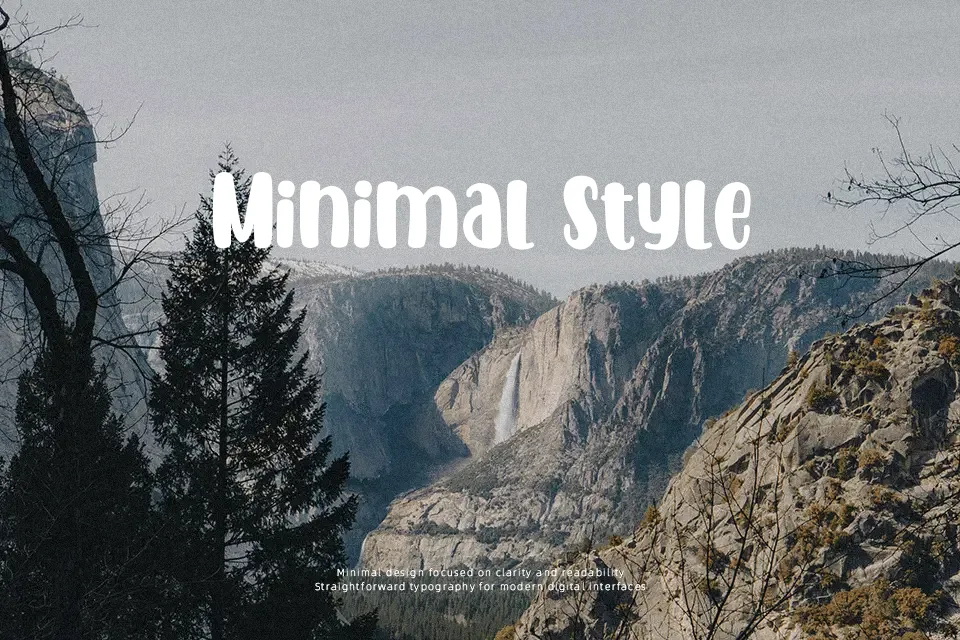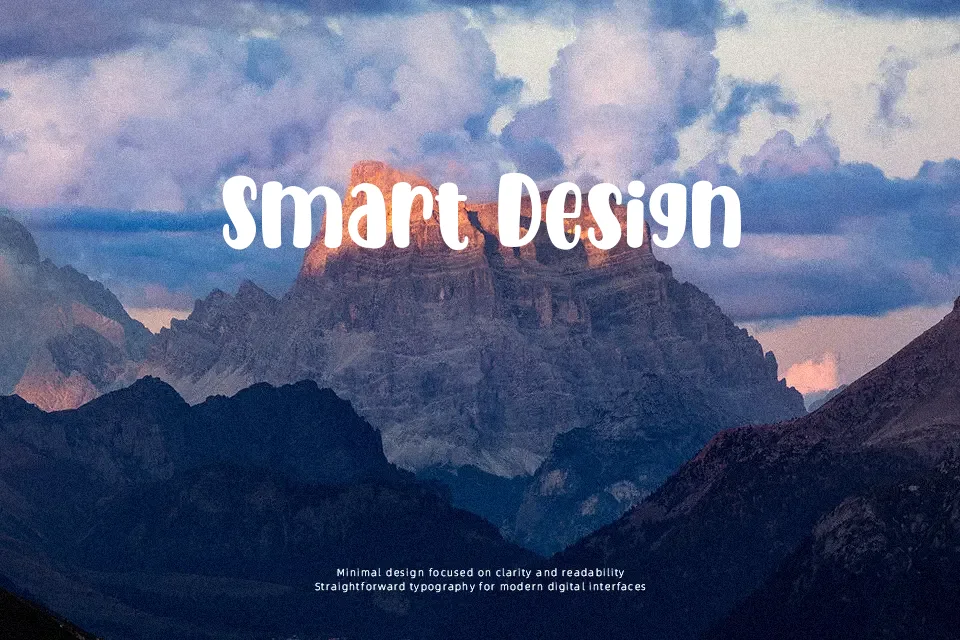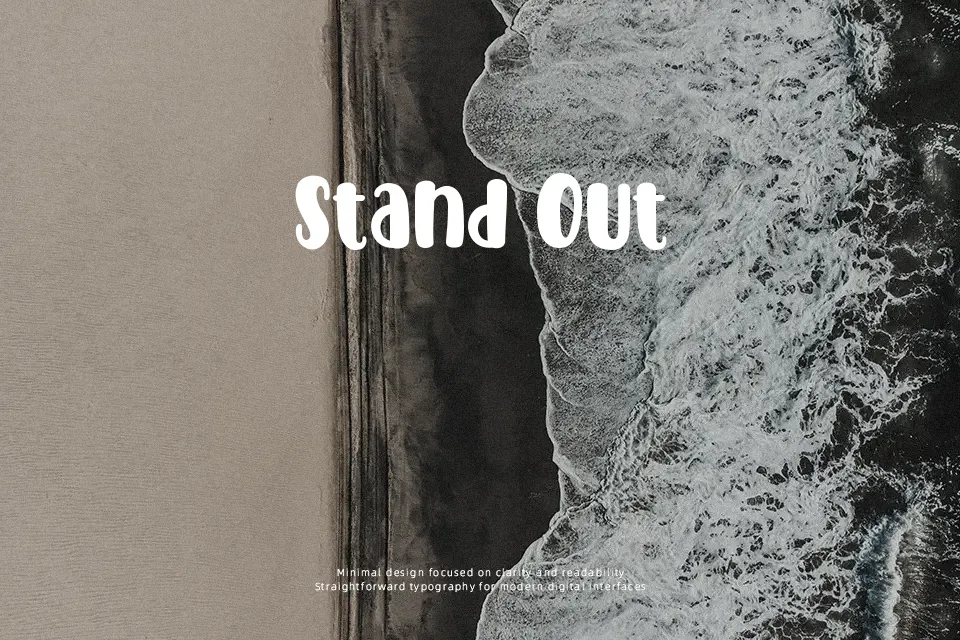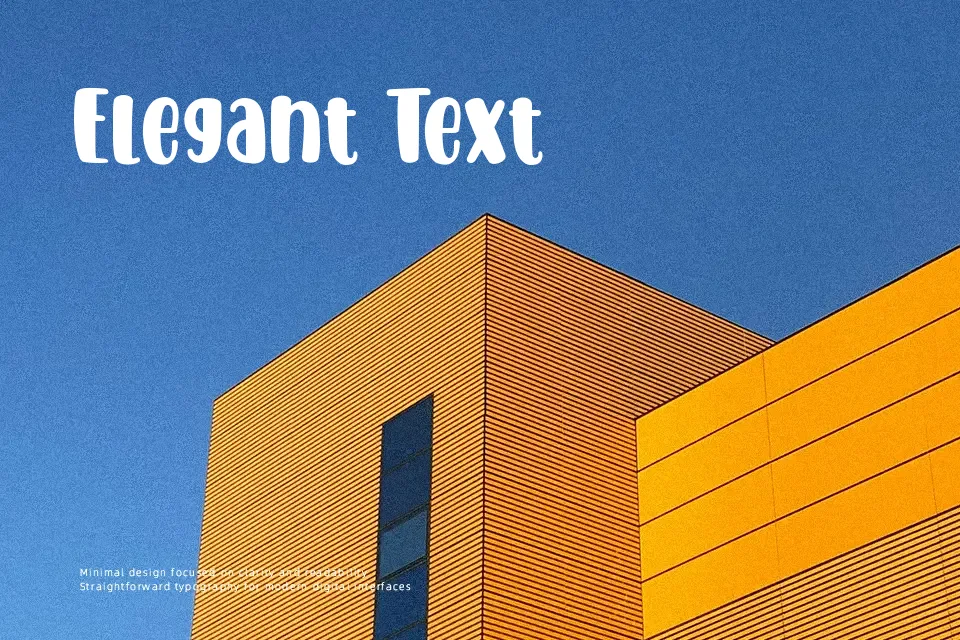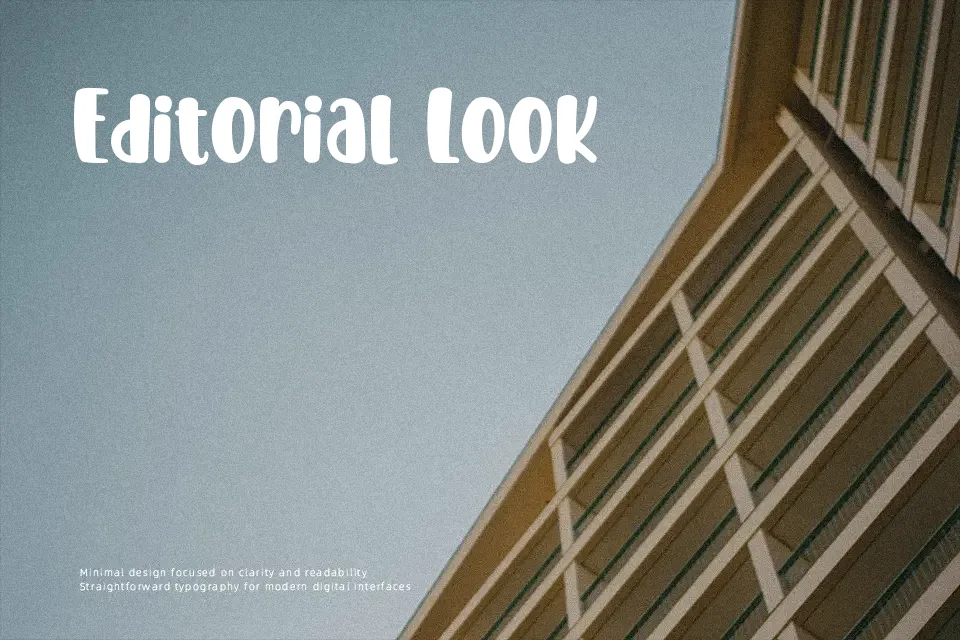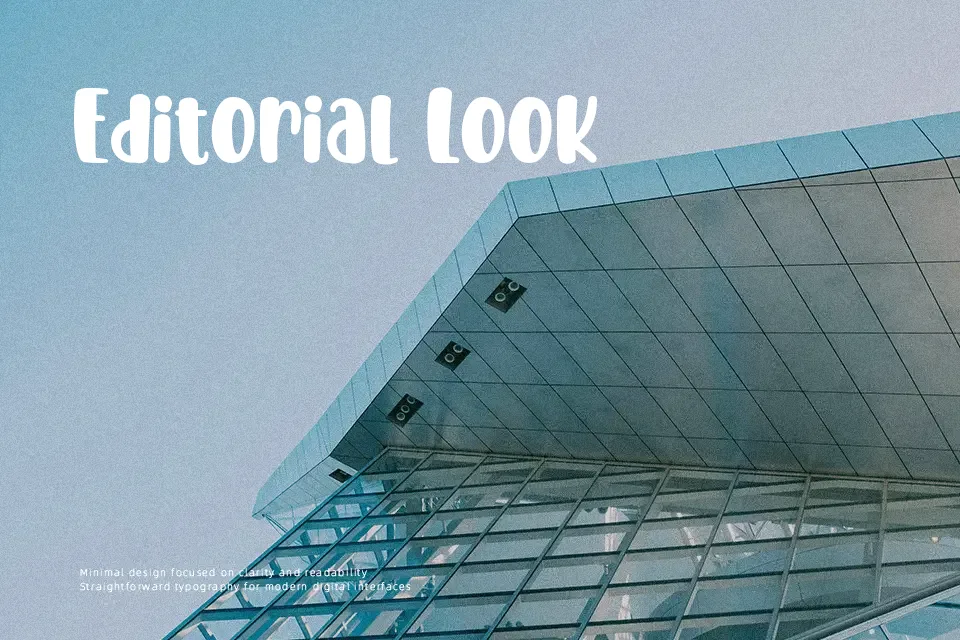
Sunshine Tropical Font
Designed by Holydie Studio
Featuring heavy stroke weights and gentle curved outlines, Sunshine Tropical Font delivers a lively cartoon presence tailored for casual graphic applications. The letterforms exhibit minimal stroke contrast, wide proportions, and smooth circular terminals that establish an approachable rhythm across titles. Moderate character spacing prevents adjacent glyphs from colliding despite their substantial thickness, keeping words legible in merchandise graphics, food packaging, and festival banners. However, the dense anatomy and enclosed counters reduce clarity in smaller print layouts and lengthy body paragraphs. The design achieves its strongest aesthetic balance when applied to large headlines where its soft contours remain distinct.
Best For: summer food packaging, children’s book covers, casual apparel graphics, party event posters
Not Ideal For: continuous body text, corporate financial documents, mobile app interface labels, small print captions
Perfect for advertising, headline, and kids, with a bold and cartoon style.